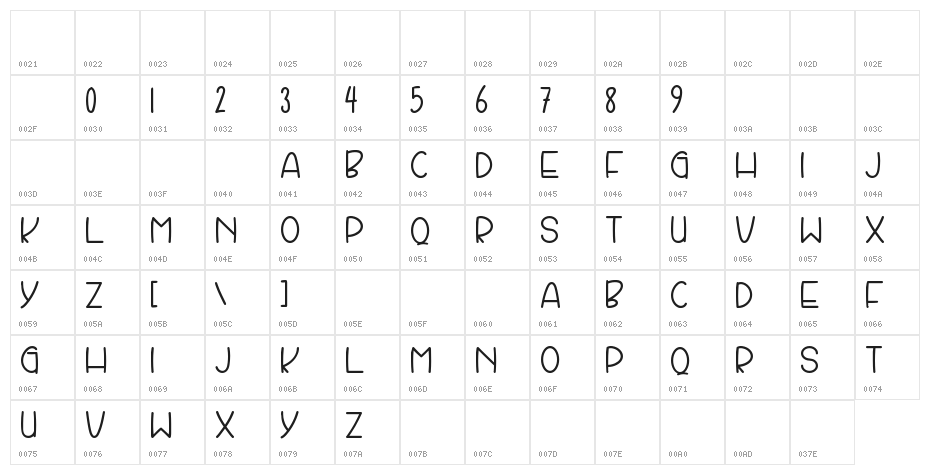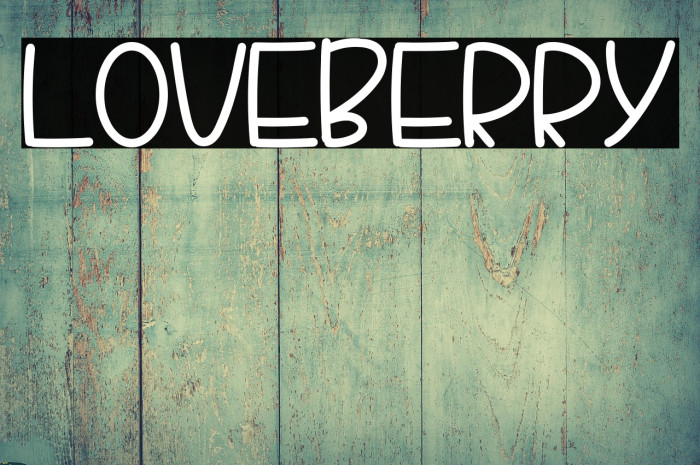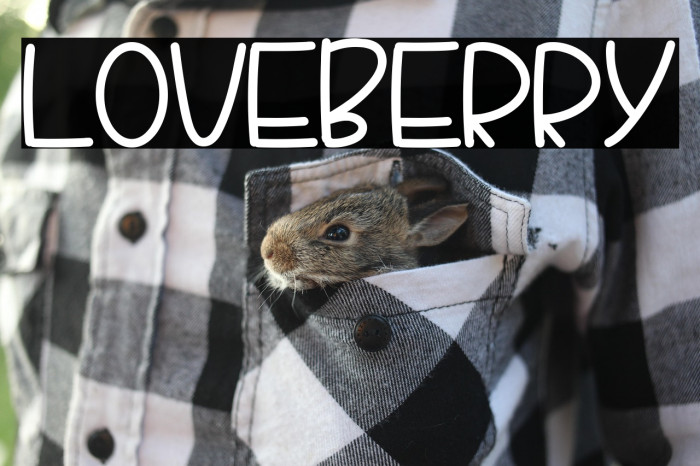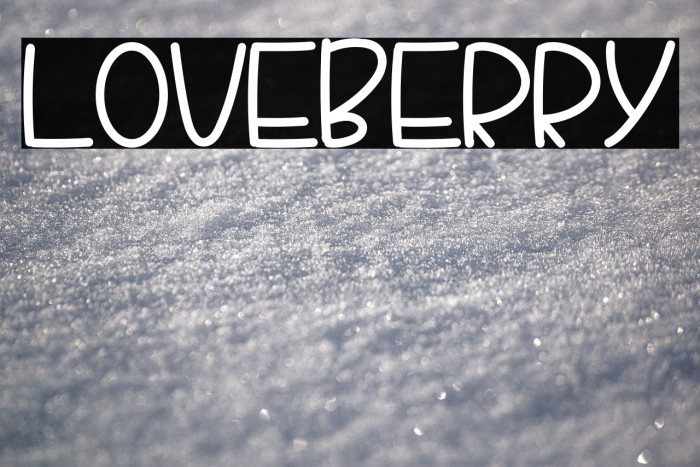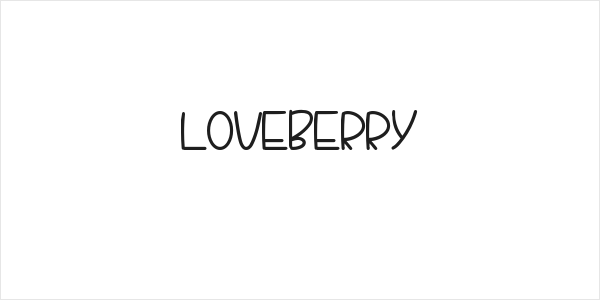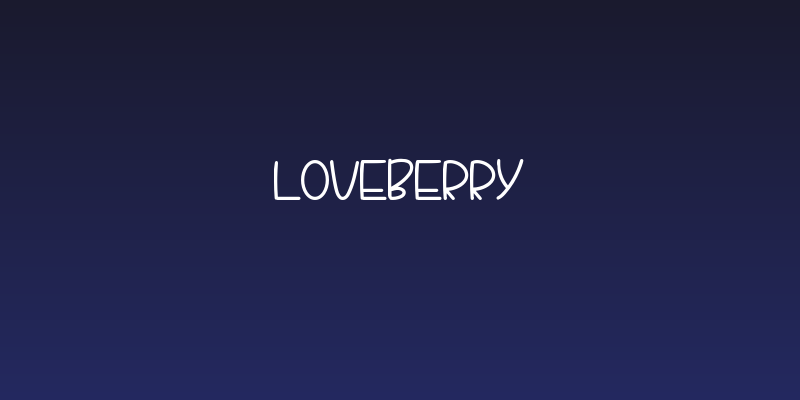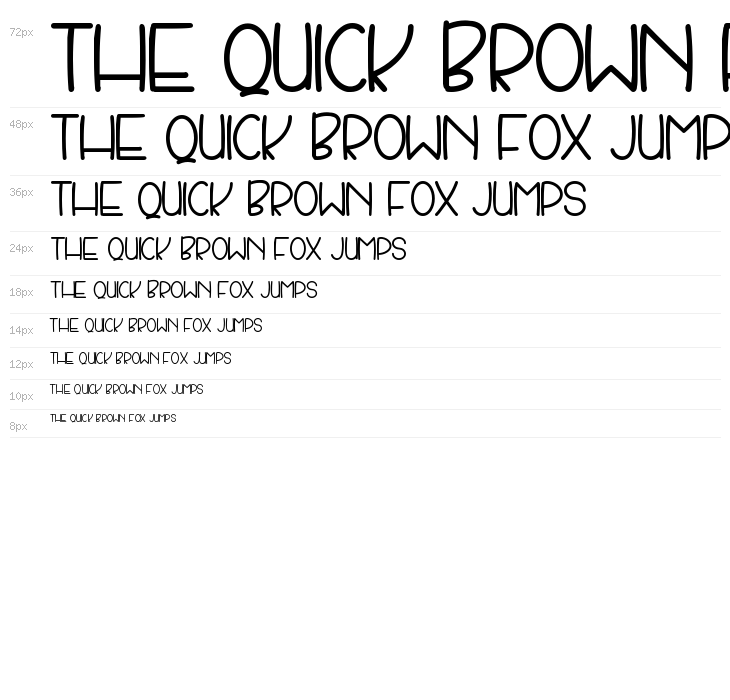
Loveberry Font
Loveberry Description
A playful, handwritten font with rounded edges and a casual style.
| Use Case | Headlines, Informal text, Branding |
| Proposed Projects | Greeting cards, children's books, casual branding. |